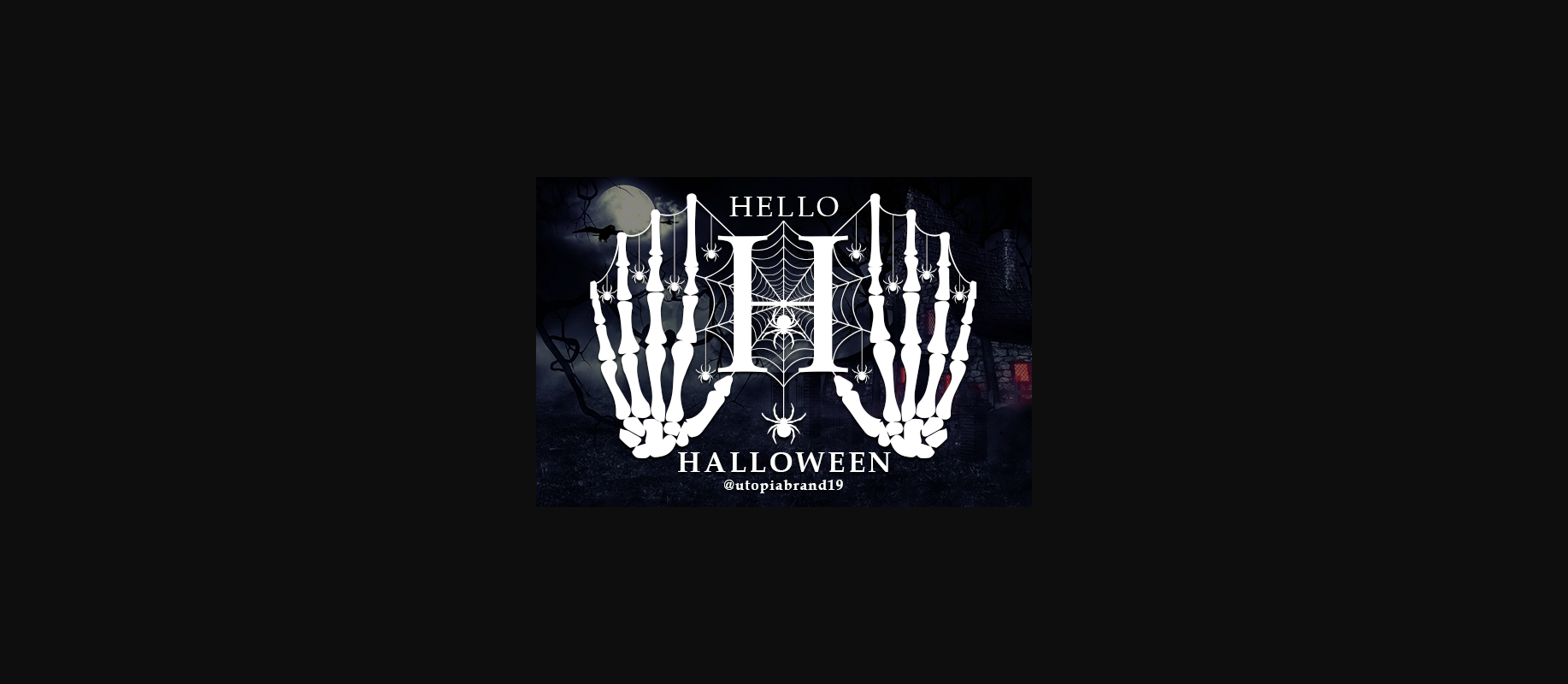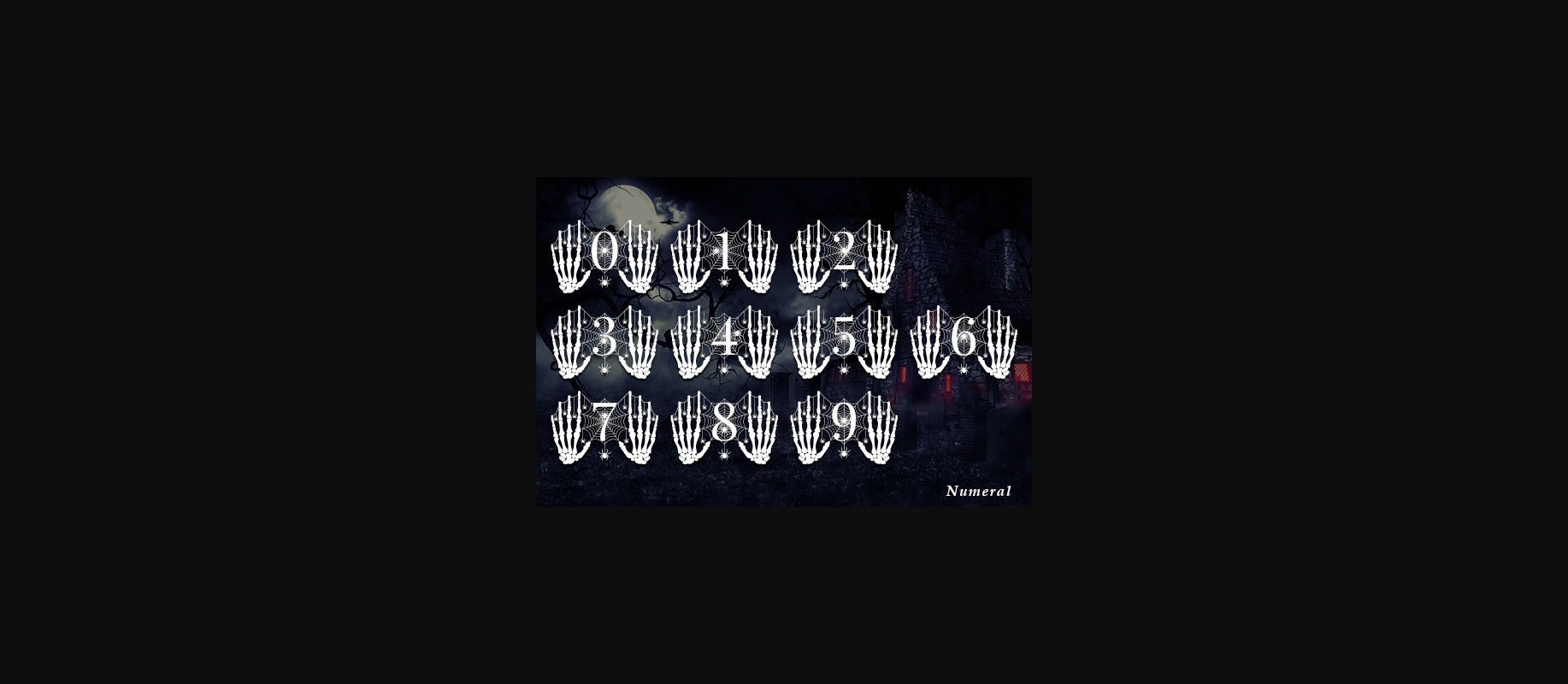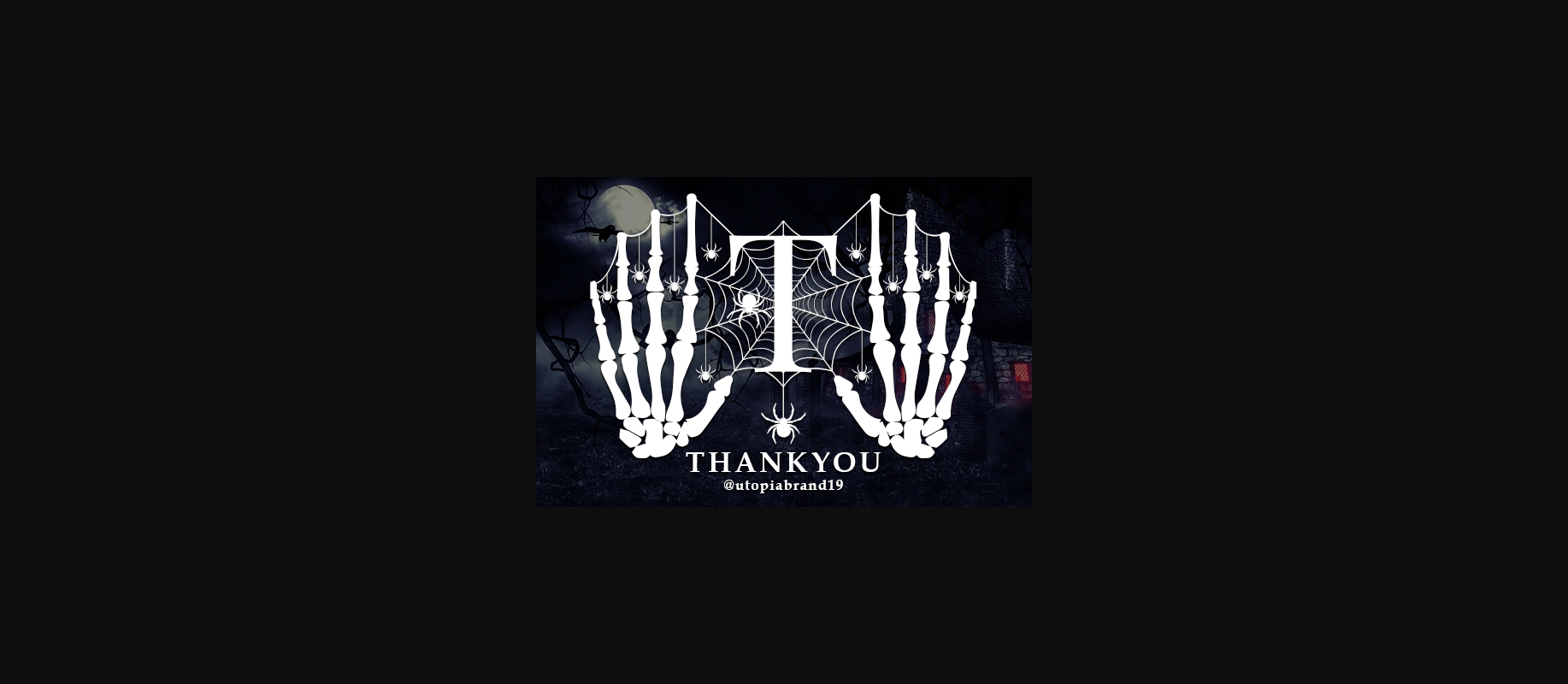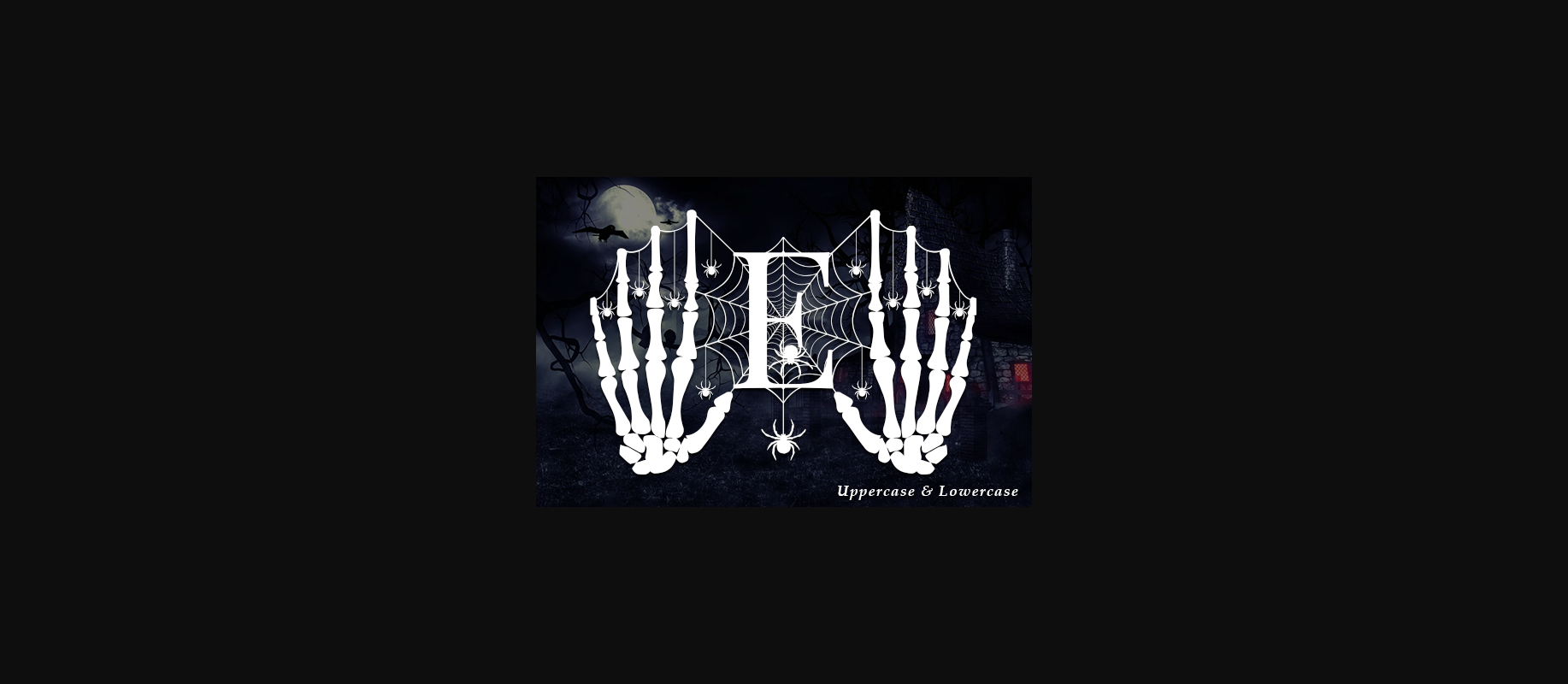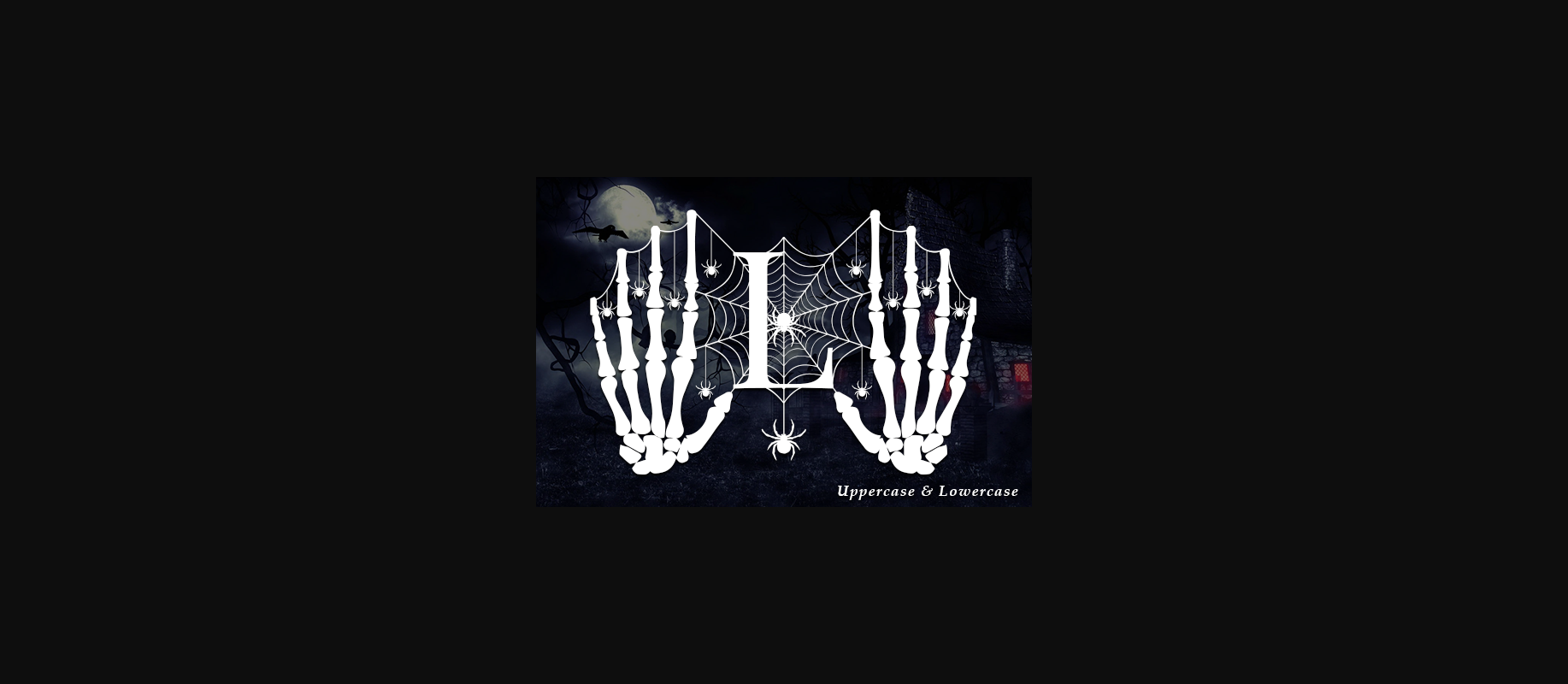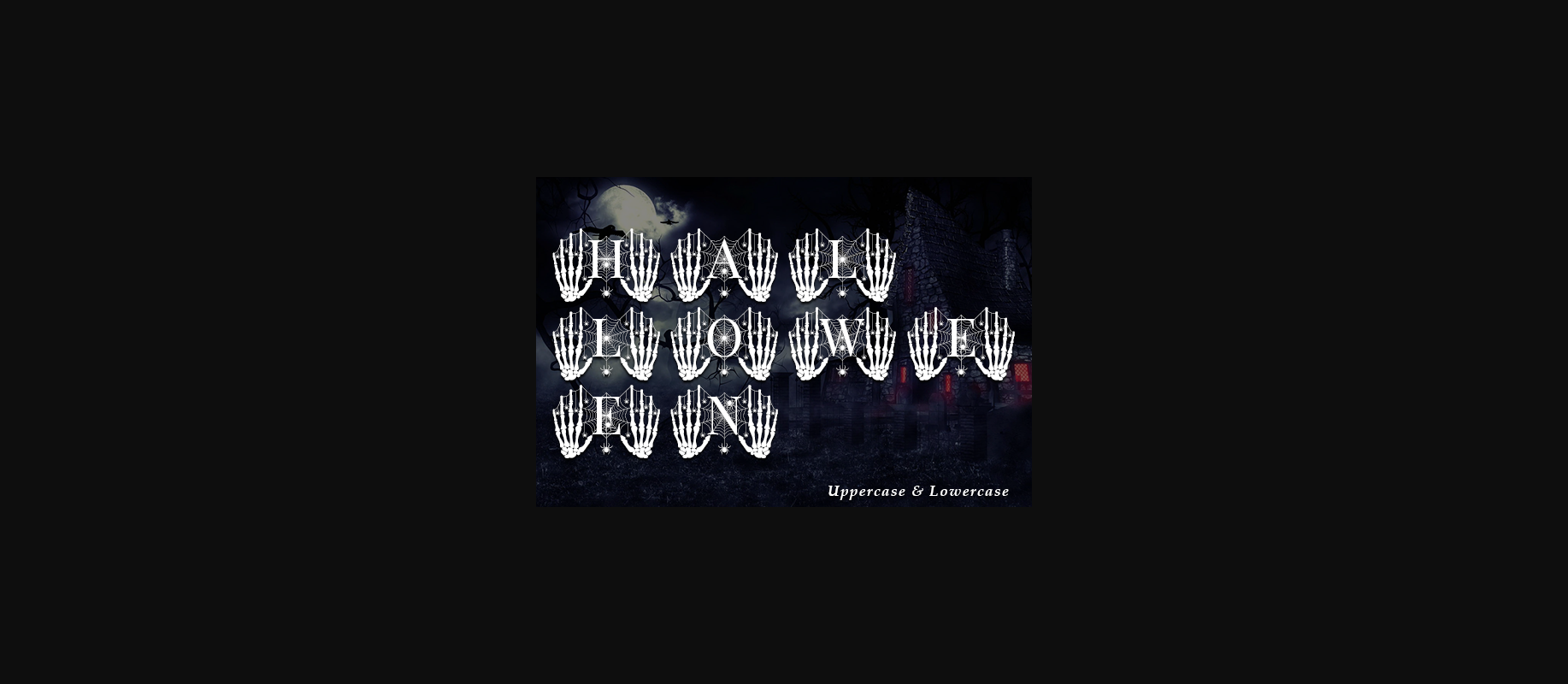
Hello Halloween Monogram Font
About Hello Halloween Monogram Font
Hello Halloween is an incredibly unique and spooky decorative font. Add it to each of your Halloween designs and make them instantly come to life.